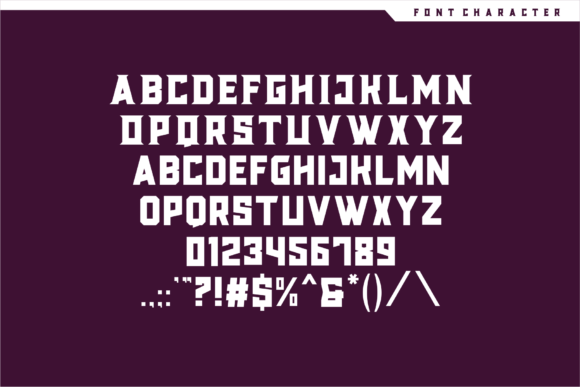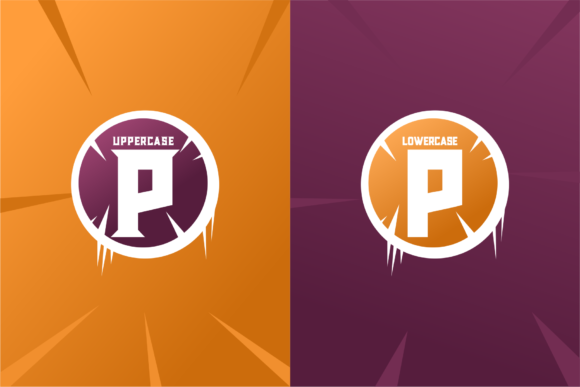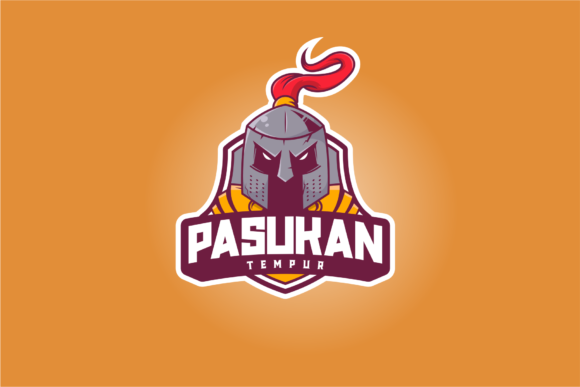
Introduction to Prodush Font
The Prodush is a striking all caps display font.
It has an unique masculine style which can be used to make any design stand out It’s perfect for logos, posters, labels, and much more.
Prodush Font offers exceptional quality and versatility, making it a valuable addition to your design toolkit. Whether you’re creating for personal projects or commercial use, Prodush Font delivers professional results.